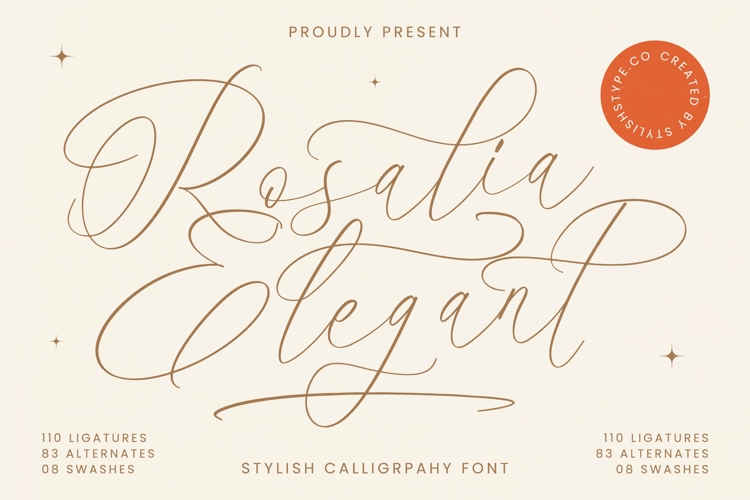
Rosalia Elegant - Stylish Calligraphy Font
Elevate your design projects with Font Rosalia Elegant - Stylish Calligraphy Font Script, a captivating script font epitomizing grace and sophistication. Its delicate, flowing lines and high-contrast strokes exude timeless charm, making it the quintessential choice for conveying luxury and refined aesthetics. This typeface brings an authentic, handcrafted feel, promising an immediate impression of elegance.
Unlock unparalleled creative freedom with the rich typographic features of Font Rosalia Elegant - Stylish Calligraphy Font Script. Boasting 110 ligatures, 83 alternates, and 8 swashes, this font offers boundless possibilities for customization. These extensive stylistic sets empower designers to craft unique, harmonious compositions, perfectly reflecting a personalized, artistic vision for every word.
Designed for discerning brands, Font Rosalia Elegant - Stylish Calligraphy Font Script is perfect for luxury branding, wedding stationery, editorial layouts, product packaging, and elegant headlines. With its extensive multilingual support, Font Rosalia Elegant - Stylish Calligraphy Font Script adapts seamlessly across global markets, making it incredibly versatile for international projects, ensuring your message resonates globally.